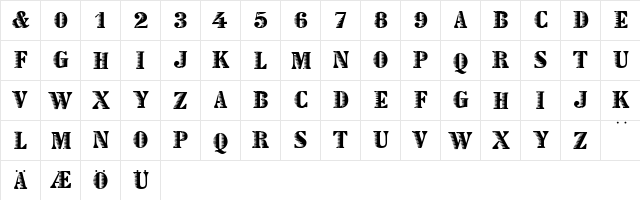
Declared Regular
Design Context for Declared Typeface
Declared is a composed and adaptable typeface that performs quietly and consistently across a wide range of design contexts.